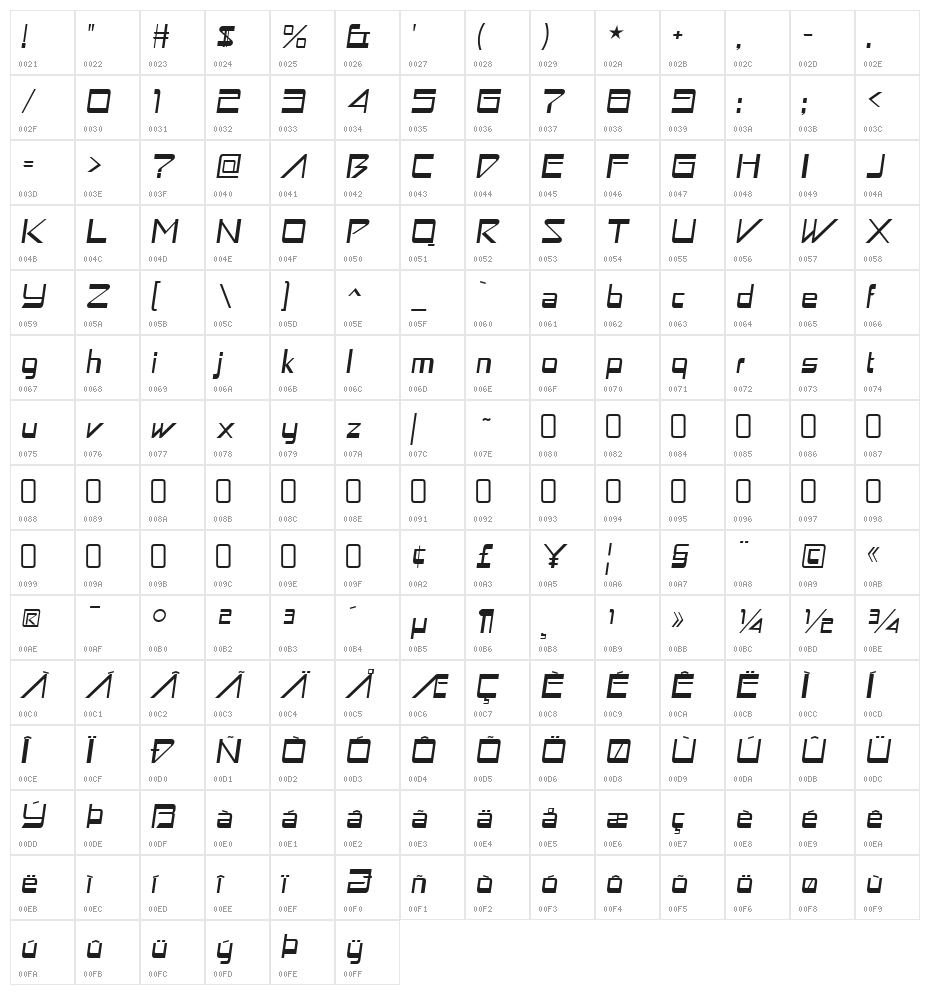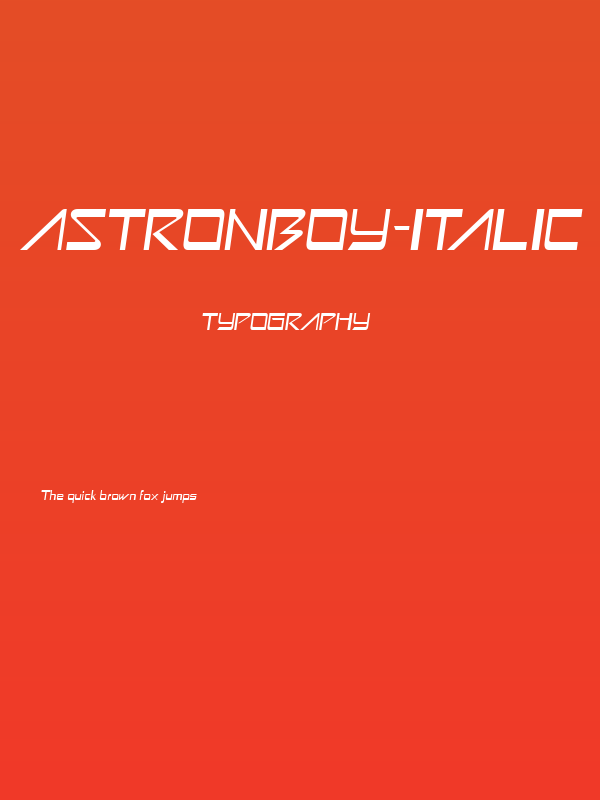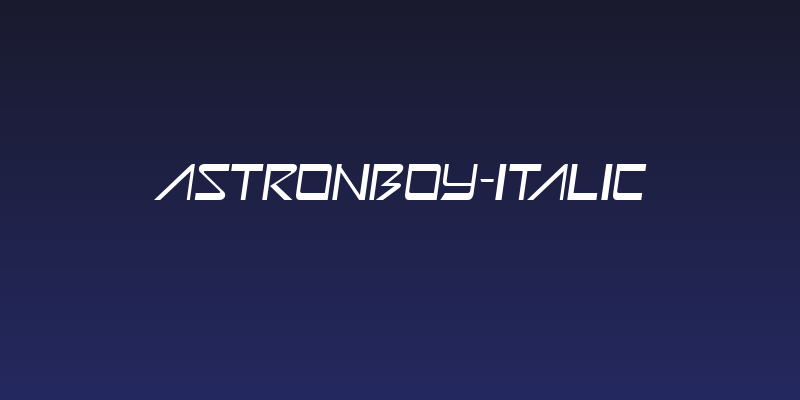
AstronBoy-Italic Font
This font features a futuristic and dynamic design with sharp angles and a sleek, italicized form. The uppercase letters are bold and geometric, while the lowercase letters maintain a consistent style with slightly rounded edges. The numbers are distinct and maintain the angular theme, providing a cohesive look across all characters. Special characters are designed to match the overall aesthetic, making this font ideal for modern and tech-oriented projects. The italic slant adds a sense of motion and speed, enhancing its futuristic appeal.
Proposed ProjectsIdeal for technology branding, sci-fi posters, video game titles, and modern advertising.